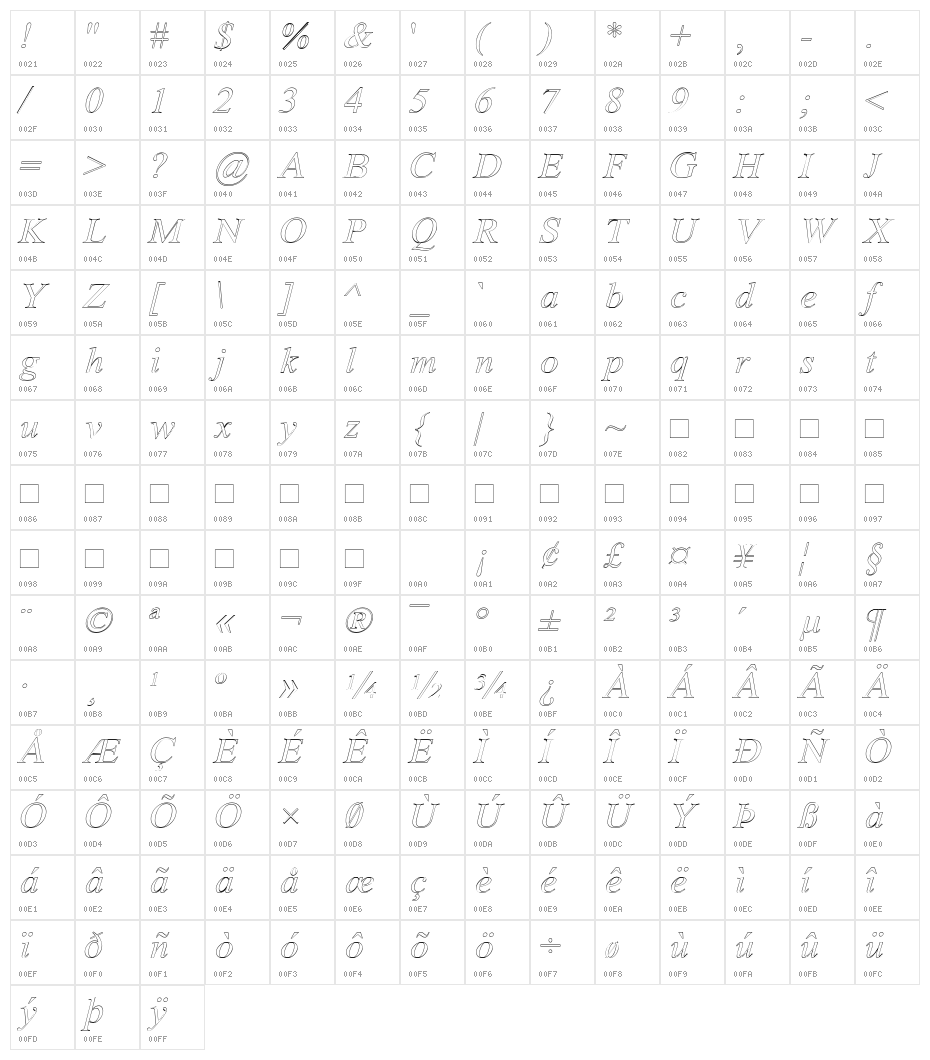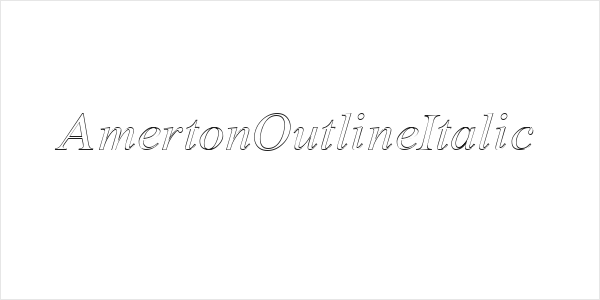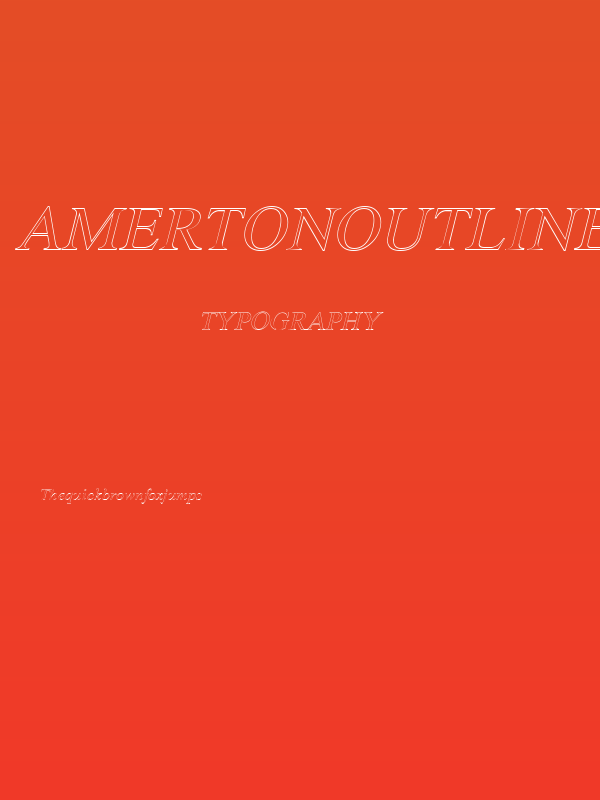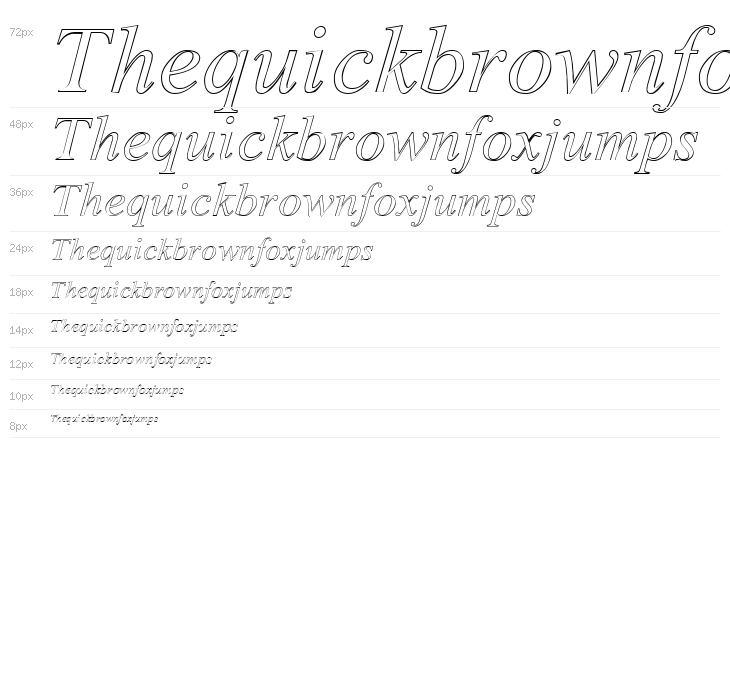
Amerton Outline Italic Font
Amerton Outline Italic Description
This font features a sophisticated outline style with an elegant italic slant, giving it a refined and artistic appearance. The uppercase and lowercase letters maintain a consistent stroke width, creating a harmonious and balanced look. The numerals are clear and distinct, complementing the overall style. Special characters are well-integrated, enhancing the font's versatility. The design is both modern and classic, making it suitable for a variety of applications. Its outline nature adds a unique dimension, making it stand out in any project.
Use CaseHeadlines, Logos, Invitations
Proposed ProjectsIdeal for branding, headlines, invitations, and artistic projects where a touch of elegance is desired.